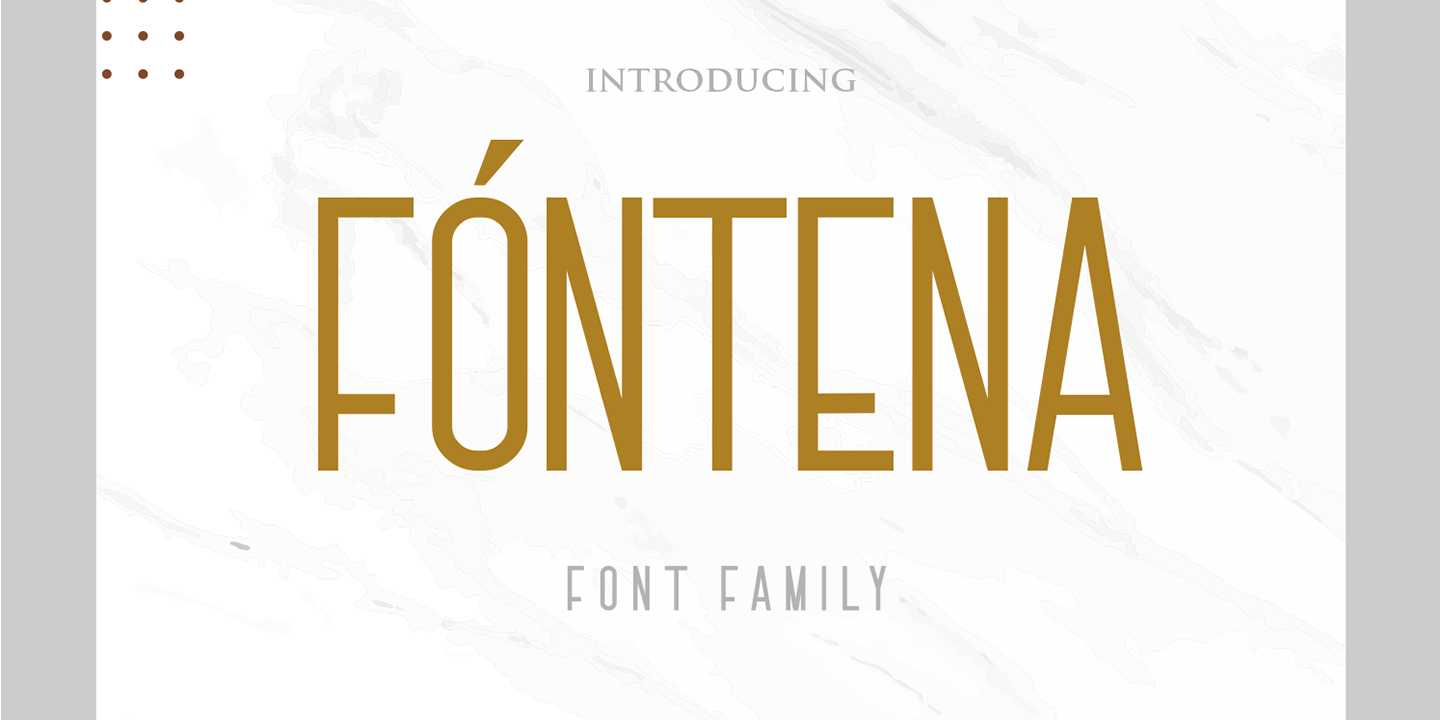
Fontena Font is perfect for typography design studios, professional font foundry branding, graphic design agency communications, digital type creation services, typographic art gallery materials, design education institution marketing, creative typography workshops, and sophisticated design industry presentations. This refined typeface excels in applications where typographic excellence, font design mastery, and design industry authority are essential for connecting with audiences who appreciate the art and science of type design and the sophisticated craftsmanship of professional typography.
What makes Fontena Font so exciting is its masterful embodiment of typography expertise and font design sophistication that perfectly captures the essence of professional type creation and the meticulous artistry of letterform development. The font features precisely crafted, systematic letterforms with typographic characteristics that demonstrate exceptional attention to character spacing, weight distribution, and design harmony. Its professional character conveys expertise, precision, and design authority - essential qualities for brands serving design professionals, typography enthusiasts, and creative industries who value typographic excellence, font craftsmanship, and the sophisticated technical knowledge required for creating exceptional typeface designs.
The Fontena Font family includes comprehensive weight ranges and systematic variations that showcase complete typographic expertise. Multiple styles demonstrate professional font family development with consistent character relationships, optimal spacing metrics, and sophisticated stylistic alternates that reflect the highest standards of contemporary type design and commercial typography excellence.
Whether you're creating branding for design agencies, developing materials for typography services, or marketing font creation platforms, Fontena Font Free Download provides the typographic authority your project demands. The font's design expertise makes it particularly effective for brands targeting creative professionals and audiences who appreciate typography mastery, font design excellence, and the sophisticated artistry of professional type creation.
Design with typographic mastery using Fontena Font and craft authoritative brand communications with typography that celebrates the sophisticated excellence of professional font design and typographic artistry.